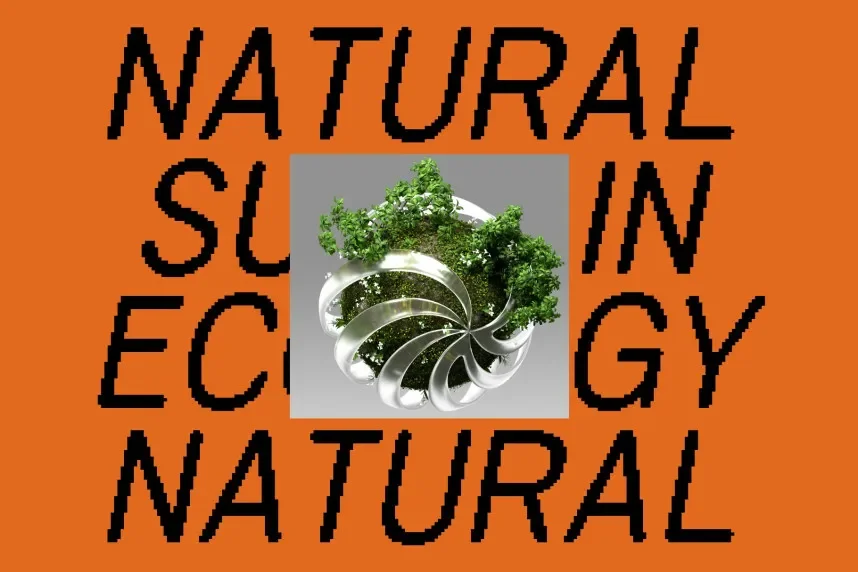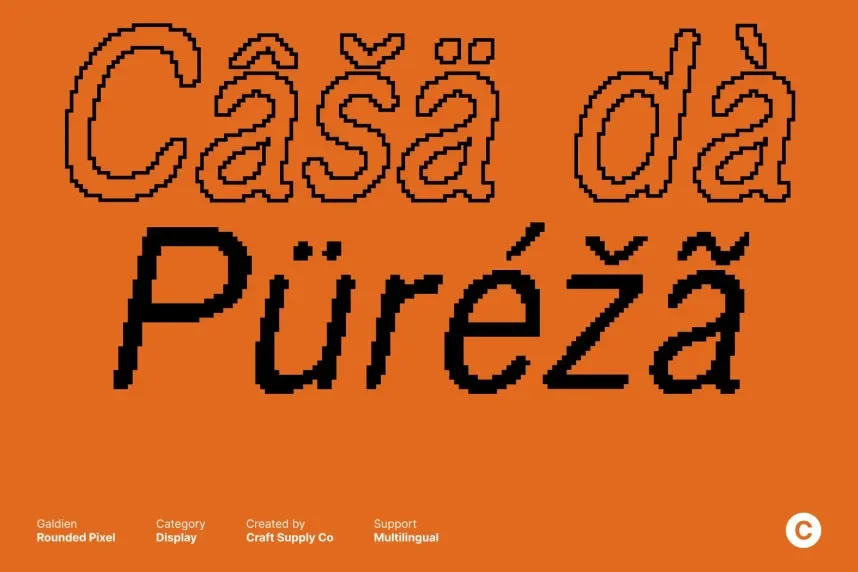
Galdien Rounded Pixel Font is a playful yet clear pixel-based font with rounded edges. It’s great for designs that need to convey a digital aesthetic with a softer, more inviting touch. Ideal for websites, tech branding, and creative projects.
Best used for logos, website text, and mobile apps, Galdien Rounded Pixel Font pairs well with clean, sans-serif fonts. Available in TTF and OTF formats, it includes a commercial-use license. Always review licensing for commercial projects.